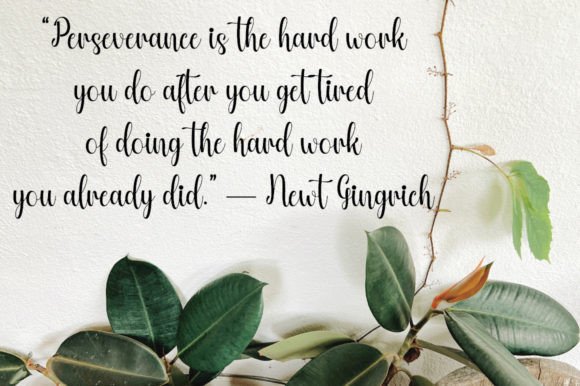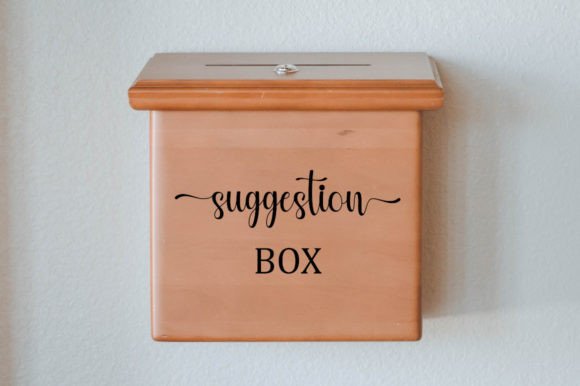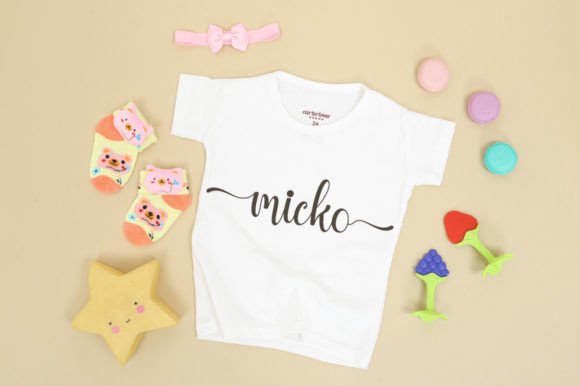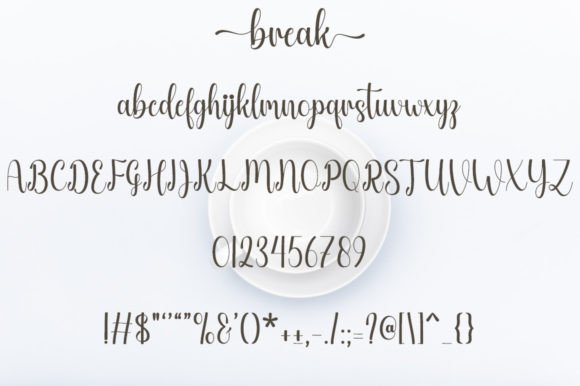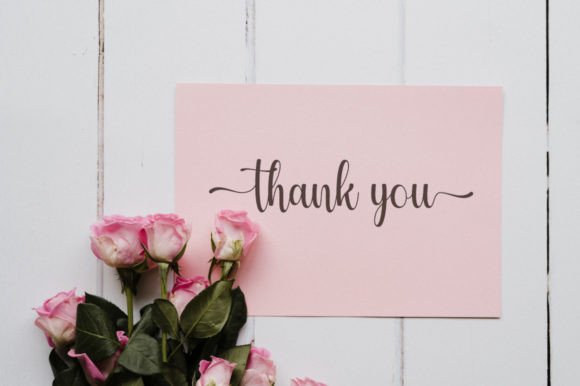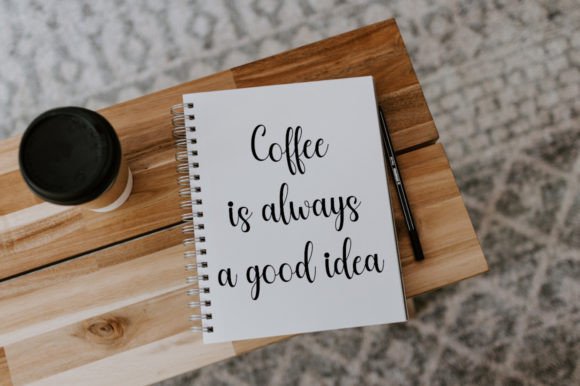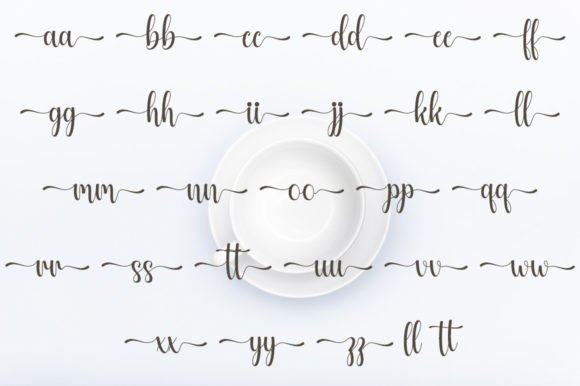
Break Font
An Elegant and Stylish Handwritten Script
Break is a sophisticated handwritten font crafted to bring elegance and personality to your designs. Each letter features graceful curves and a smooth, flowing style that feels refined yet approachable. The font’s delicate character makes it perfect for projects where you want your words to feel special and heartfelt.
Whether you’re working on branding or personal stationery, Break transforms ordinary text into something beautiful and memorable.
Break is a versatile font that works beautifully in a wide range of applications. It’s ideal for wedding invitations, save-the-date cards, and event signage. The elegant style adds romance and a sense of occasion to any celebration.
Use Break for thank you cards, greeting cards, and inspirational quotes. The handwritten look adds warmth and sincerity to every message.
This font also shines in logos, business cards, and product packaging. The smooth, modern lines help your branding feel polished and distinctive. For social media graphics and blog headers, Break’s timeless style draws attention and keeps your designs looking professional.
Break is PUA encoded, so you can easily access all the glyphs and swashes without needing special design software.
Clear, Refined, and Easy to Read
Even though Break has a flowing handwritten style, it remains clear and easy to read at any size. The balanced spacing between letters ensures your text looks tidy and professional, whether it’s a headline or small caption.
Many designers like to pair Break with a clean sans-serif font to create contrast. Use Break for titles and the sans-serif for supporting text. This combination guides the reader’s eye and keeps your layout clean and modern.
To bring out Break’s elegant feel, use light backgrounds and soft color palettes. Neutral shades like ivory, blush, and pale gray help the graceful letterforms stand out without distraction.
When designing wedding materials or luxury packaging, consider adding delicate floral elements or watercolor textures. These details enhance the romantic, timeless mood. For social media posts and branding, keep layouts minimal so the font stays the main focus.
Think about the mood you want to create. Break is perfect for designs that should feel polished, heartfelt, and sophisticated.
Break is more than just a stylish script font. It’s a design tool that transforms simple words into something extraordinary. Its clean lines and elegant flow bring personality and beauty to every project.
Adding Break to your font collection means you always have a reliable option for creative work. From weddings and product packaging to social media posts and logos, this font adapts easily to your ideas.